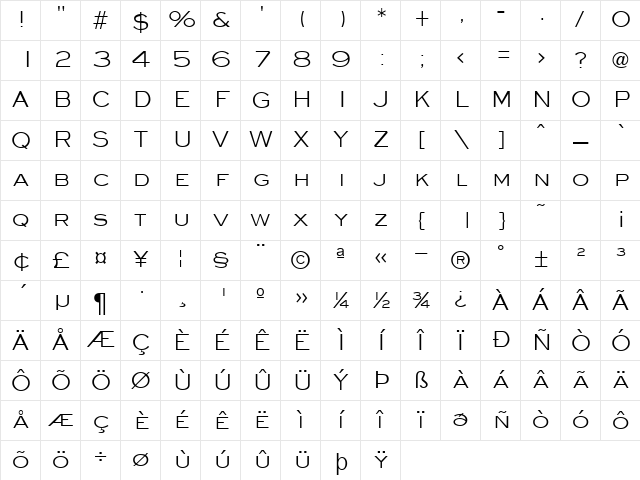
GE Arroyo Caps Regular
Design Context for GE Arroyo Caps
GE Arroyo Caps is a composed and adaptable typeface that performs quietly and consistently across a wide range of design contexts.